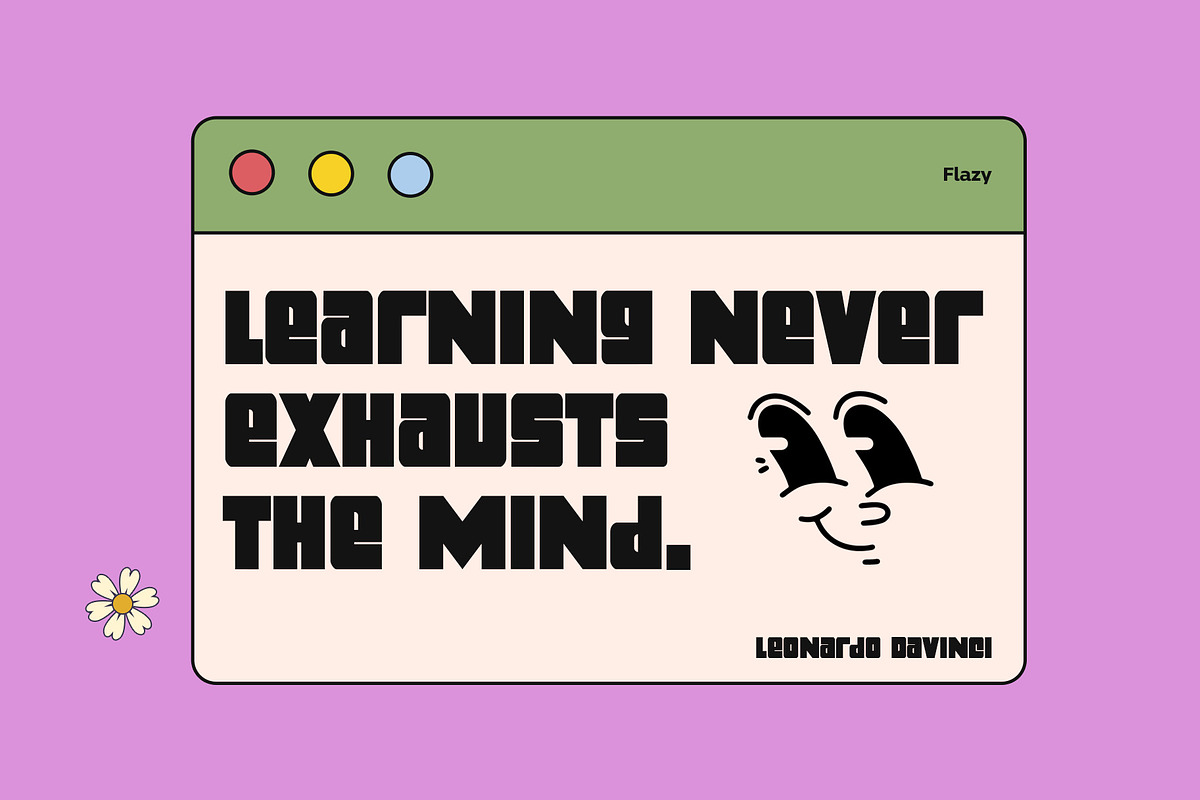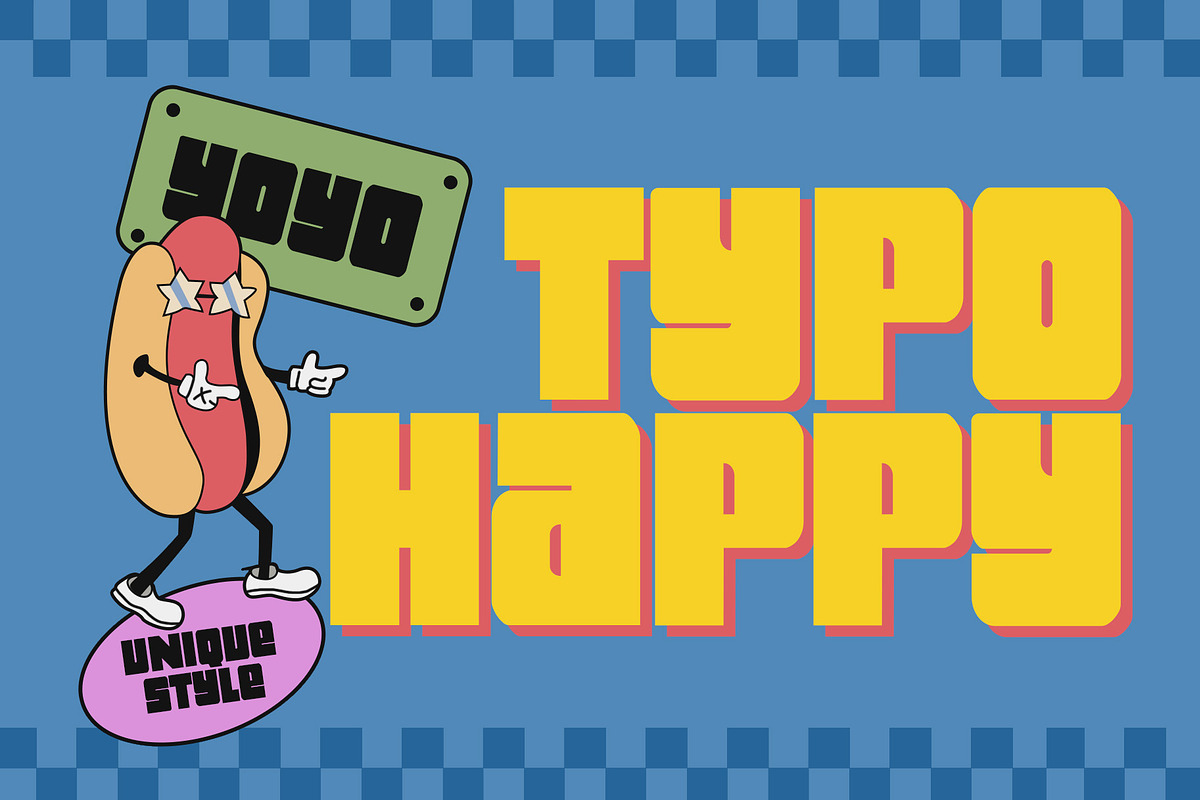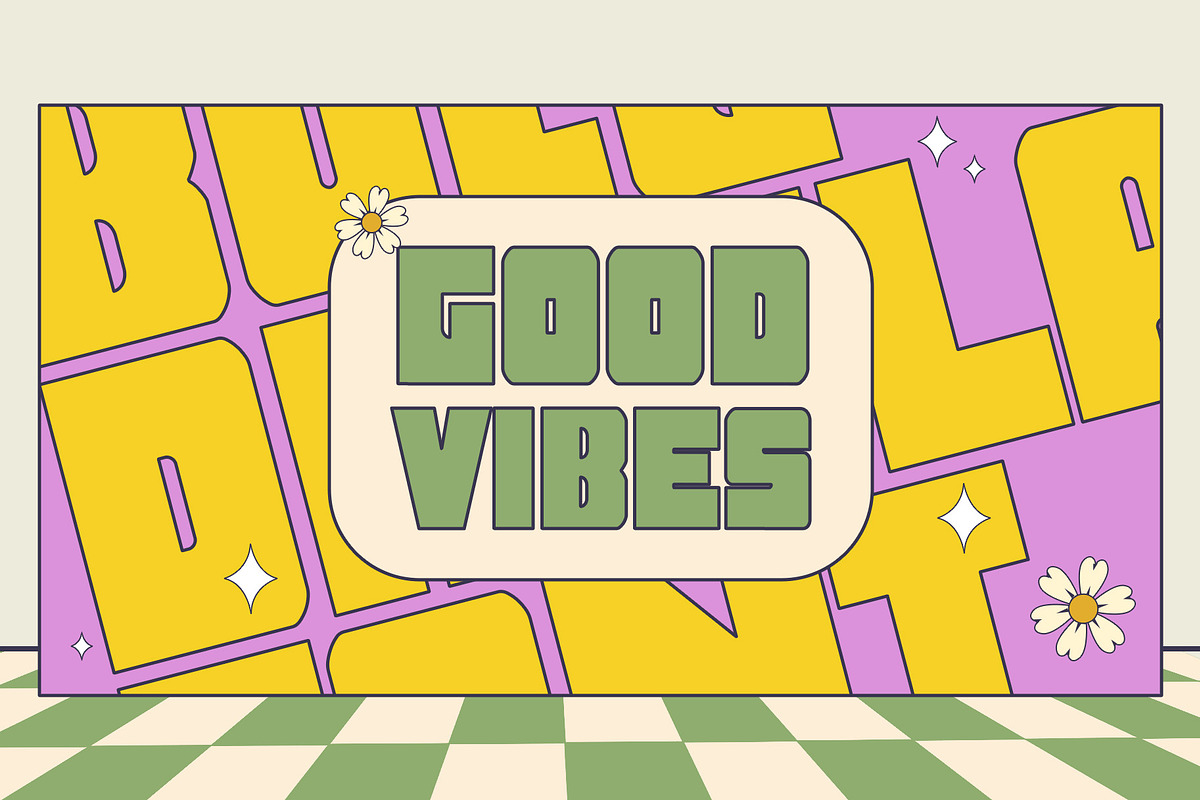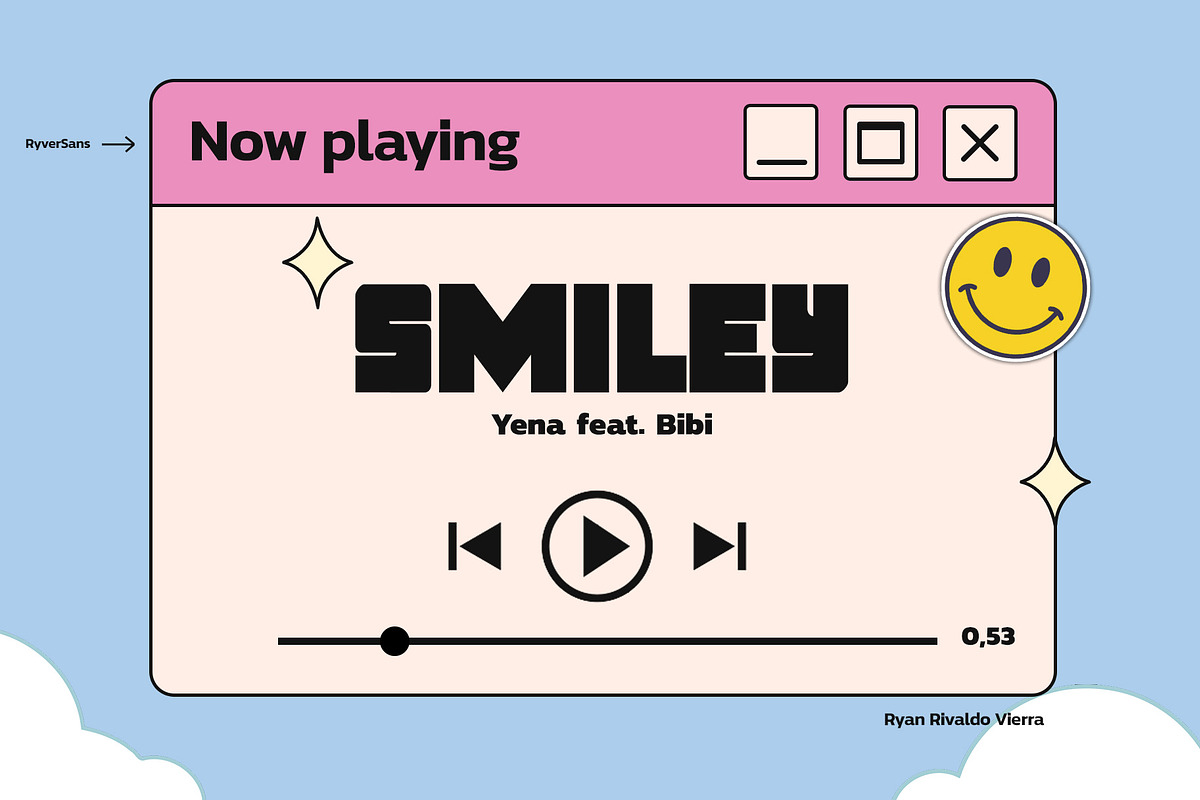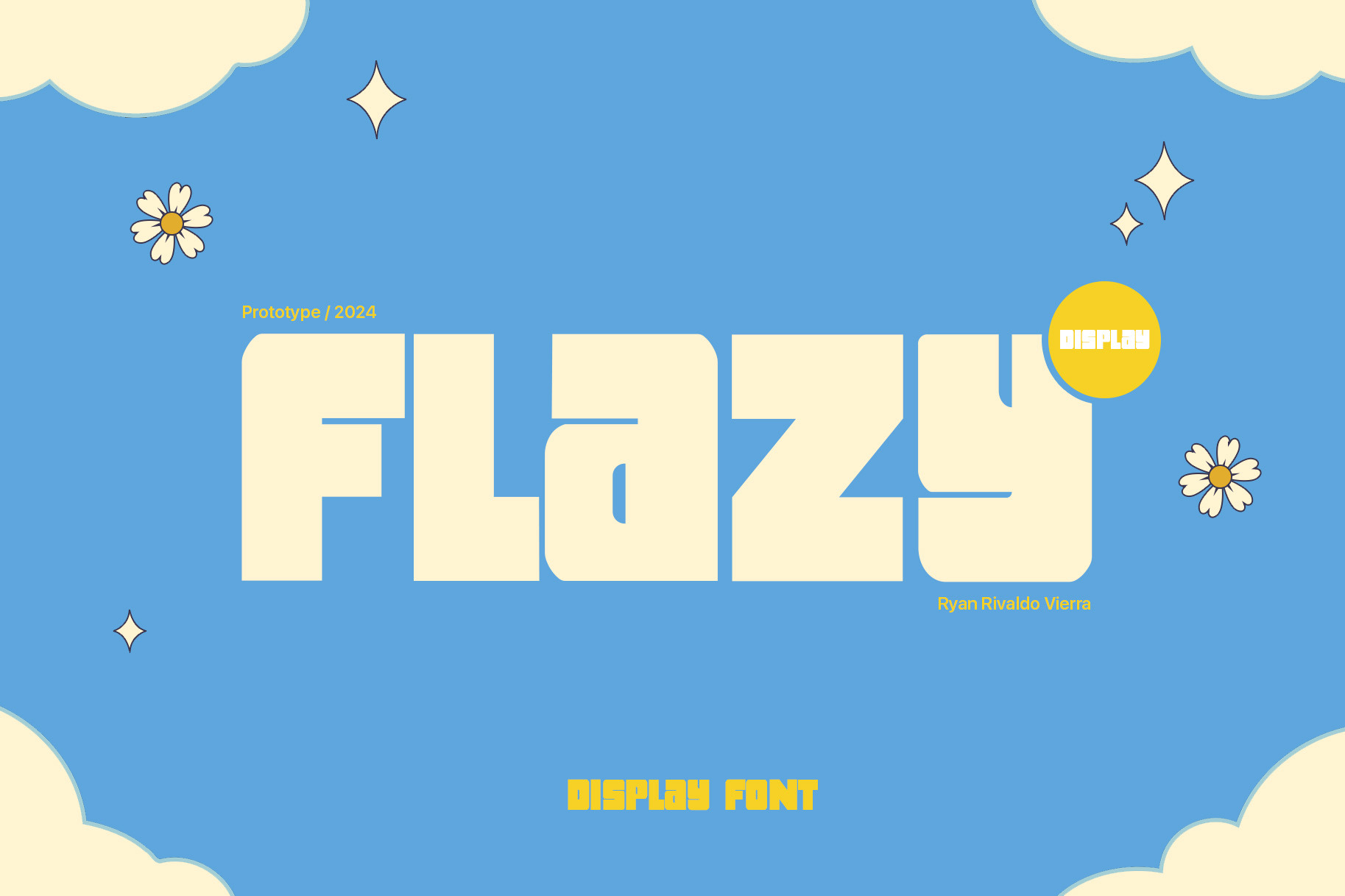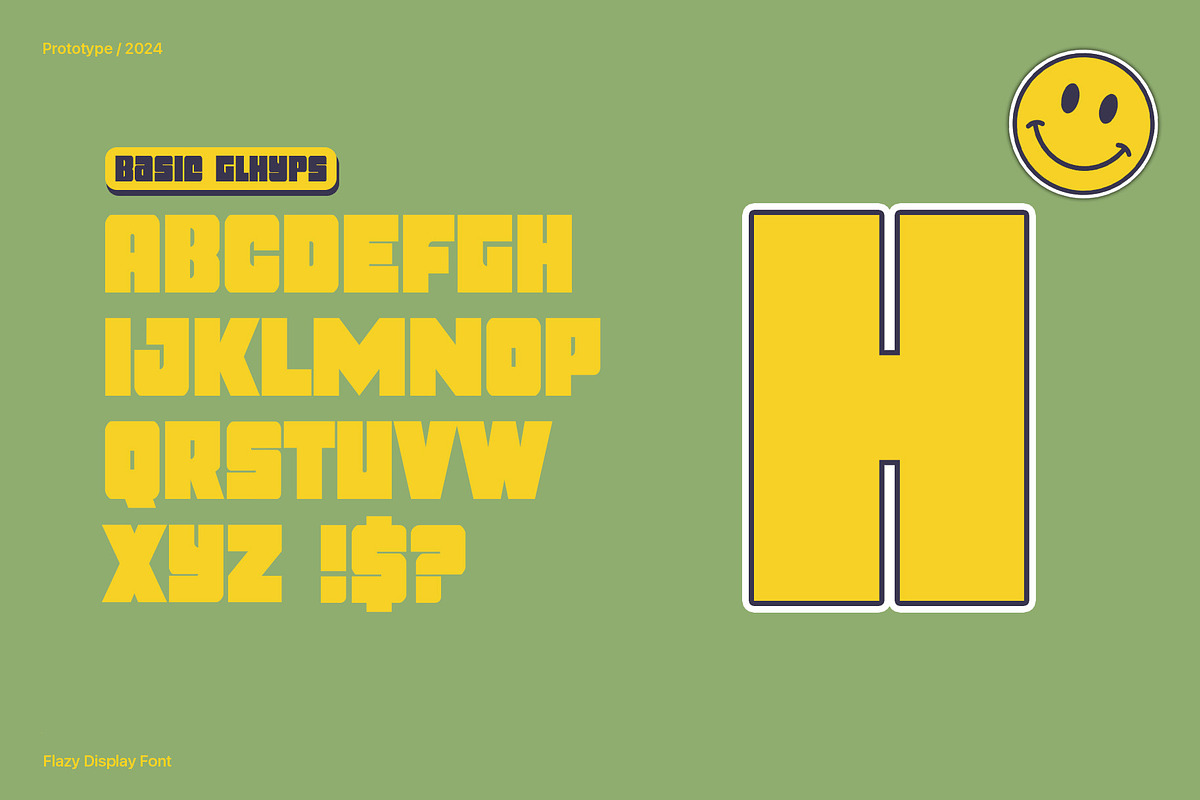
Flazy Display Font
Flazy Display Font is a Uniqe, Bold, modern and square font is a typography style that exudes confidence and contemporary flair. With its clean lines and strong presence, this font catches the eye and demands attention. Each letter is carefully crafted to create a striking visual impact, making it perfect for grabbing the attention of those who see it
The bold weight of this font adds a strong and powerful impression to each character. It conveys a sense of assertiveness and prominence, even from a distance. The thickness of the strokes gives each letter a solid, substantial feel, making it a great choice for attention-grabbing titles, logos, and text.